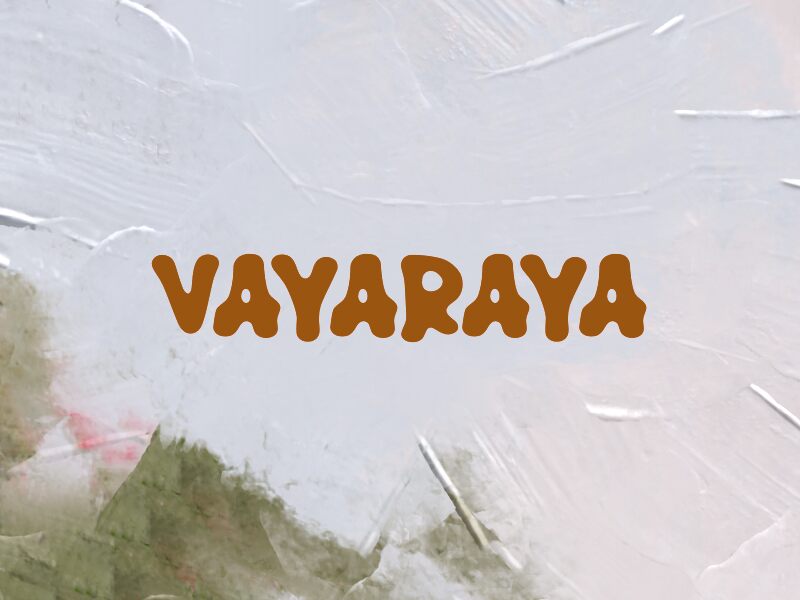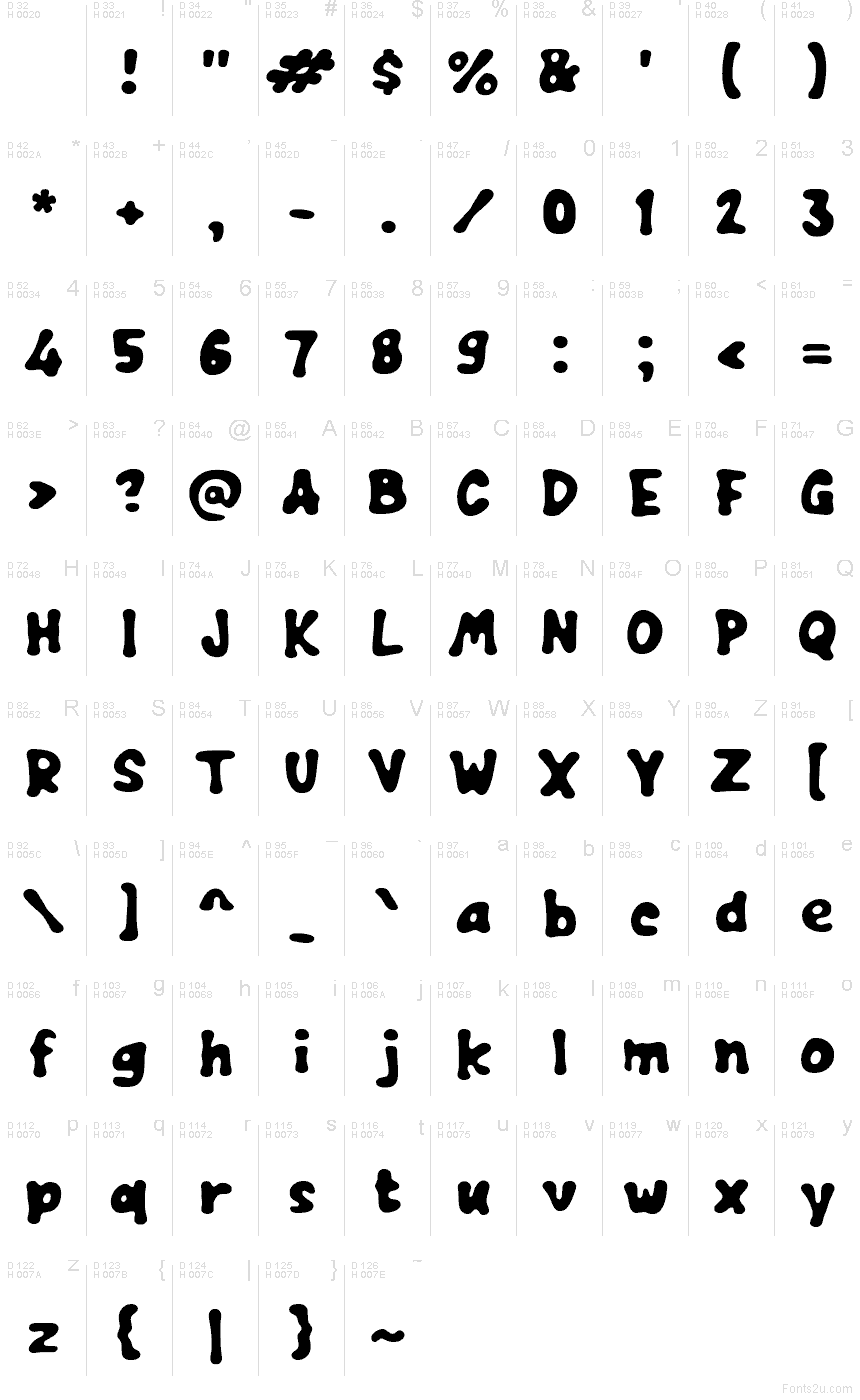
VAYARAYA
Vayaraya font by wep is a free groovy display typeface with chunky, inky letters that look like they’ve been poured rather than drawn. The rounded blobs and tight curves create a fun, bouncy rhythm that instantly feels retro and hand‑made, without slipping into chaos. Its bold shapes stay readable even at a glance, so it grabs attention while still feeling soft and approachable.
Using Vayaraya, your titles feel like stickers slapped onto a notebook or a festival poster. This free font shines on music flyers, playful logos, kids’ packaging, social media graphics, merch, and bold website hero text. Keep it large and generous on the page, and pair it with a simple geometric sans in smaller sizes to let its bubbly personality really pop.